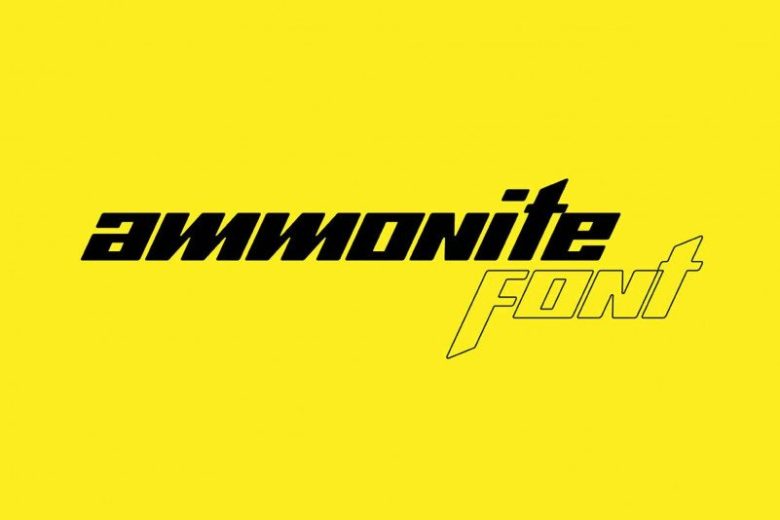
Ammonite Free Font
Thank you for looking Ammonite Free Font. This is a display titling sans serif typeface. It is a powerful sans serif display typeface come with sporty themes. This font come with modern themes. It matches applies in some designs such as the logotype, brand, packaging, quotes, t-shirt, cover book and more custom design.